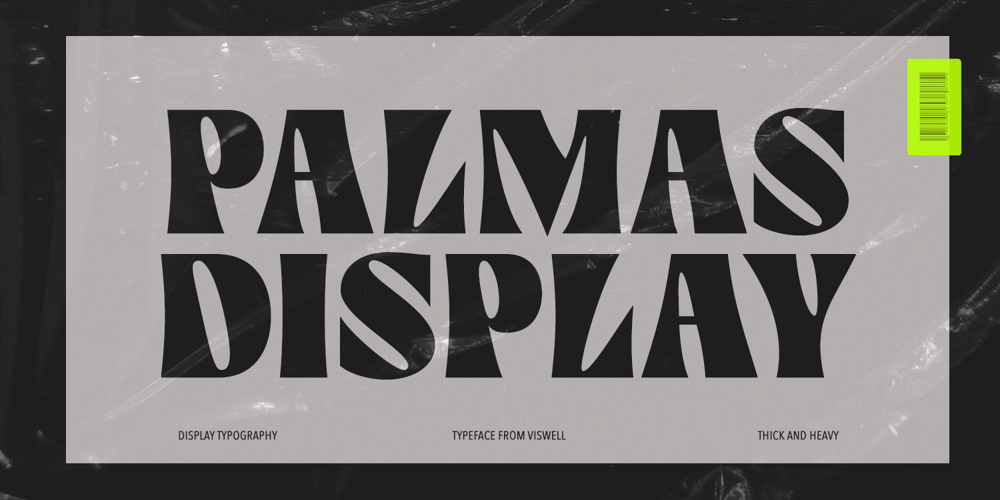
Palmas
Palmas font
Palmas Font Family was designed by Agam Rahmadan and published by Viswell. Palmas contains 1 styles and family package options. Palmas is a striking display typeface that exudes a sense of boldness and vintage charm. Its thick and heavy letterforms make a statement, demanding attention from viewers. With its retro psychedelic style, Palmas is perfect for designs that require a touch of nostalgia or a hint of the 70s-90s era.The letters of Palmas are intricately crafted, with subtle curves and serifs that add character to each glyph. The font’s weight gives it a commanding presence, making it ideal for headlines and titles. It’s easy to imagine Palmas being used for album covers, movie posters, and other designs that require a bold and unique typeface.Despite its retro inspiration, Palmas remains versatile and adaptable. Its bold style works equally well in modern designs, lending a touch of personality and character to any project. Whether used in print or digital media, Palmas is sure to leave a lasting impression on viewers.